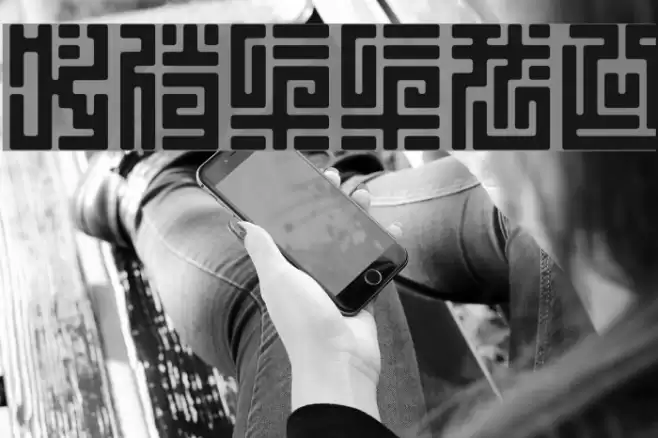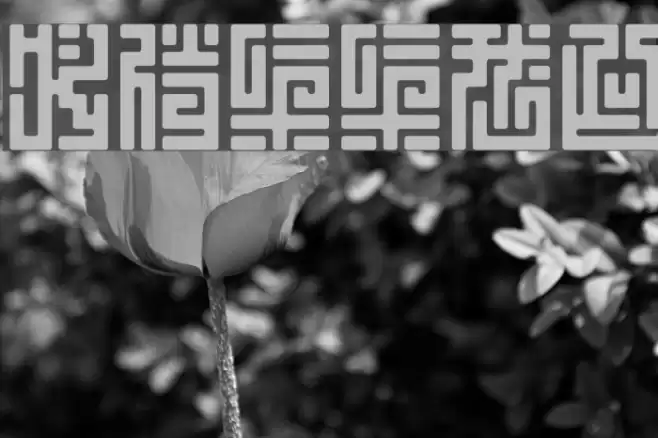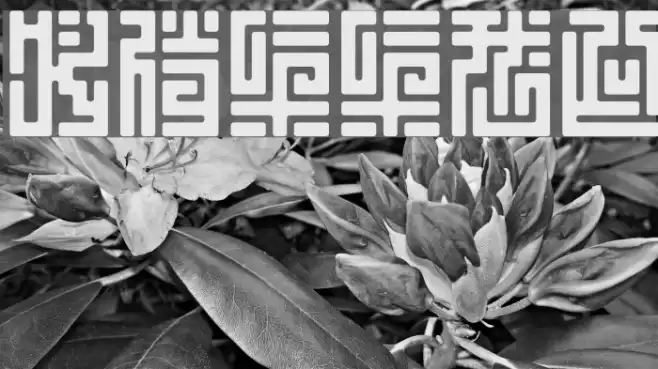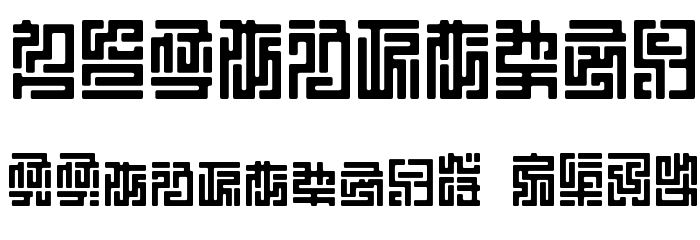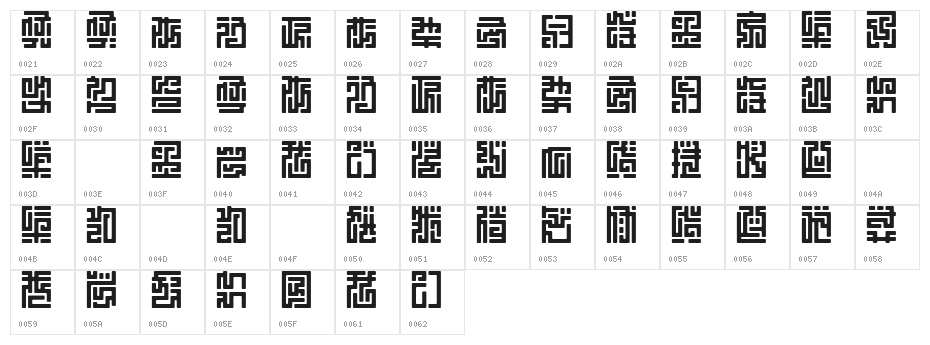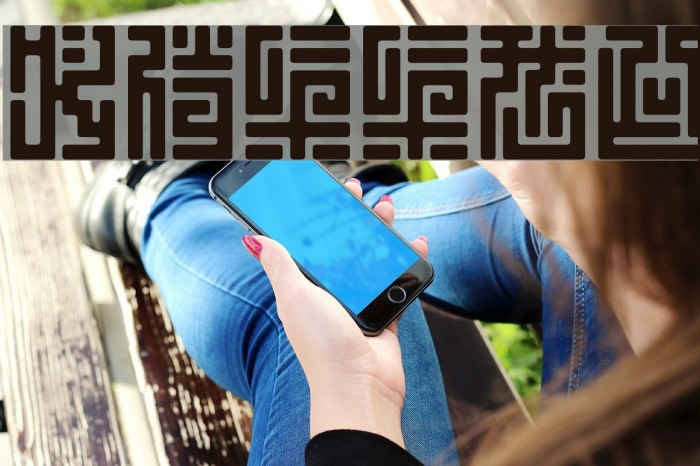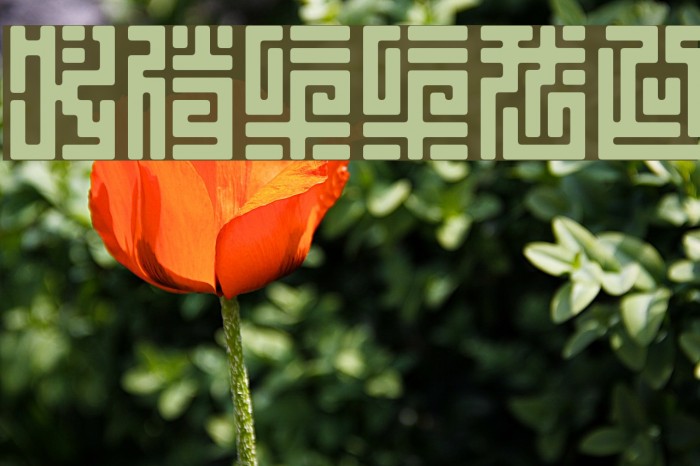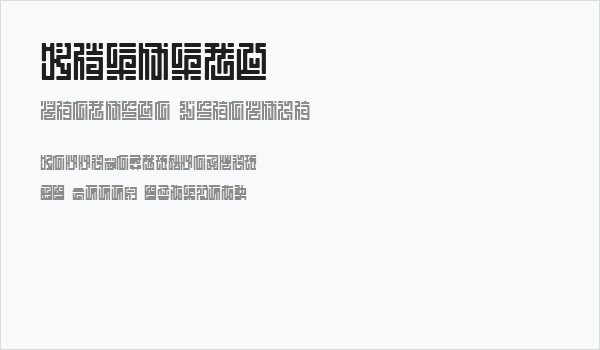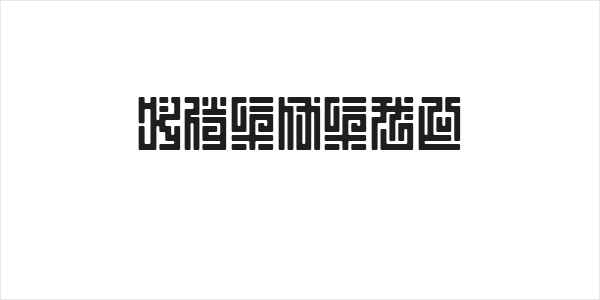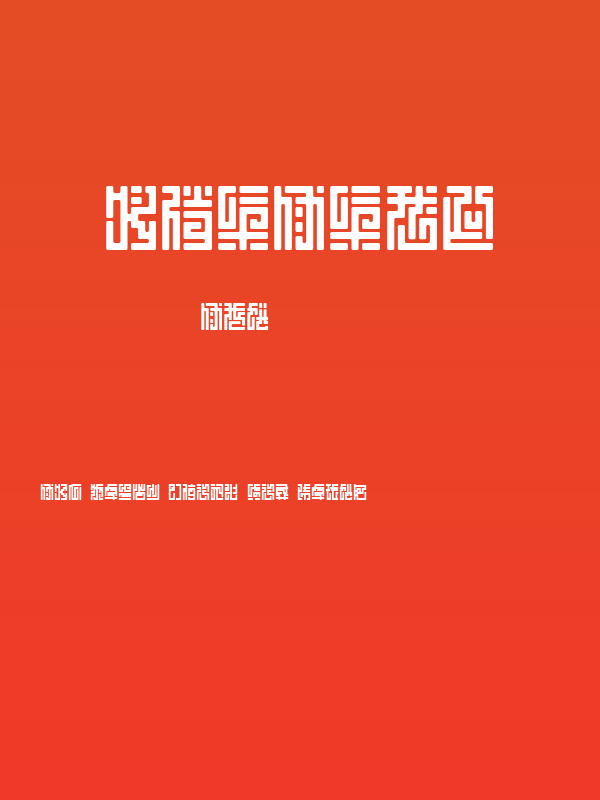
HRKtKAI Font
HRKtKAI Description
This font features a bold, geometric design with a strong emphasis on vertical and horizontal lines, creating a maze-like appearance. The characters are constructed with thick strokes and sharp corners, giving them a modern and industrial feel. The uniformity in stroke width across all characters contributes to a cohesive and structured look. This font is highly stylized, making it suitable for creative and artistic projects that require a distinctive and eye-catching typeface. The spacing between characters is tight, enhancing the compact and dense visual impact of the text.
A bold, geometric font with a maze-like, industrial design from Capitals fonts.
- Proposed Projects: Ideal for posters, album covers, branding, and any project seeking a modern, artistic flair.
- Character Spacing: Tight
- Use Case: Logos, Posters, Branding